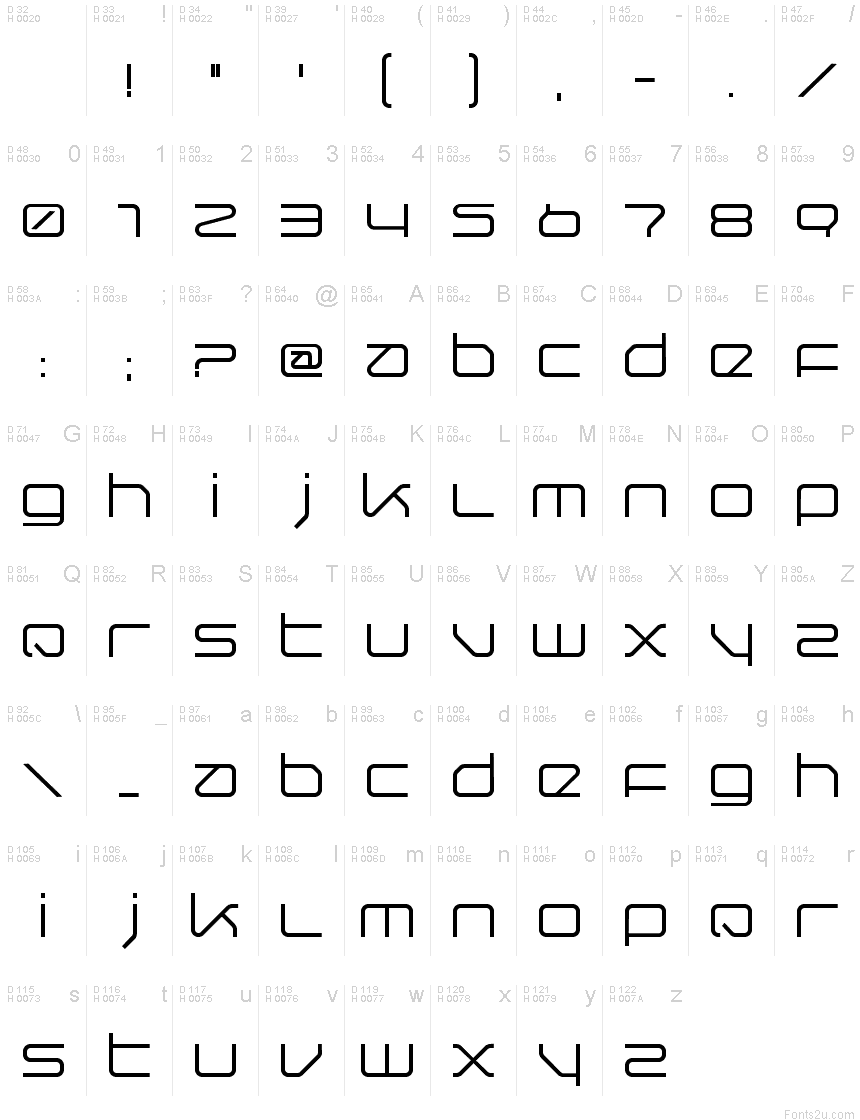
Querround Regular by Onezero is a free futuristic rounded-square display font with a calm, modular rhythm. The letters feel drawn from softened rectangles and clean bends, mixing open, geometric forms with a slightly playful tech mood that keeps the font from turning cold.
It fits naturally in interface-led branding, electronic music artwork, poster titles, packaging, and short logotypes where that cushioned sci-fi shape can carry the whole tone. As a free font, it also makes sense for title cards, app names, and brief cover lines, especially when you want rounded geometry that feels more human than hard-edged techno lettering.